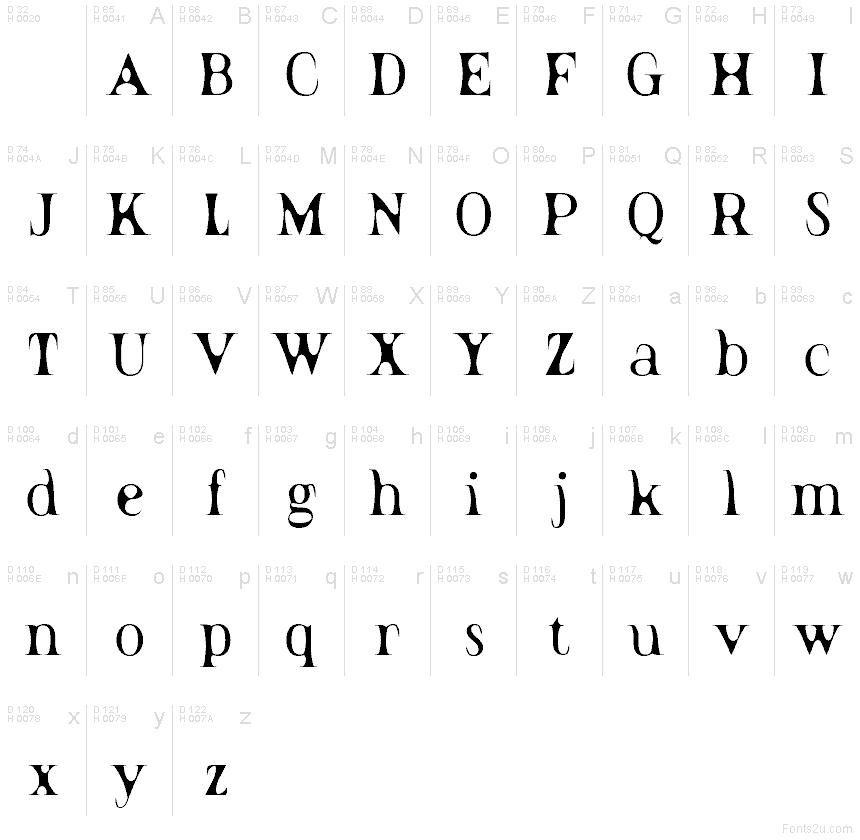
CSCharlesDrawn-Regular Demo
CS Charles Drawn font by Craft Supply Co. is a playful comic display font with structural detail that brings visual intrigue. The free whimsical font gains its light fun appearance from constant thin and thick line contrast that make up its character structure. Some of these wavy playful lines are curved along their length while others bear sharp edgy corners.
Comics, story books, games, branding and packaging are among the wide variety of CS Charles Drawn uses. It’s also an untraditional lettering style for kids posters and typography that will simultaneously draw attention to digital artwork such as logo design names, marketing ads headlines, app interfaces etc.
CS Charles Drawn Demo